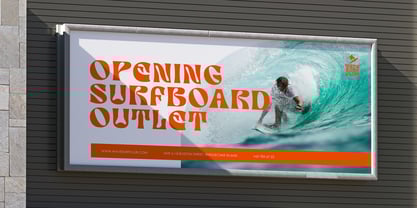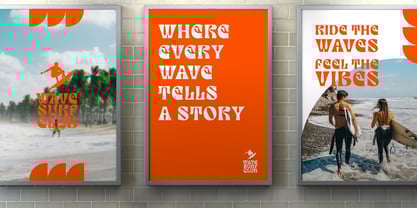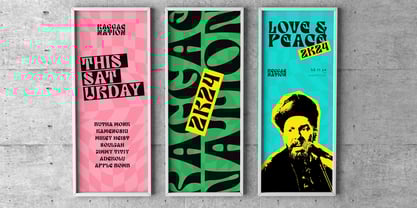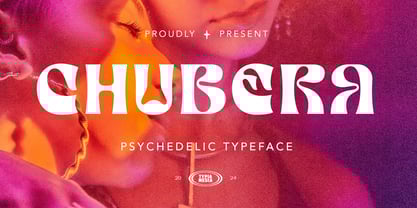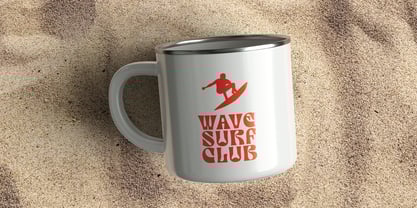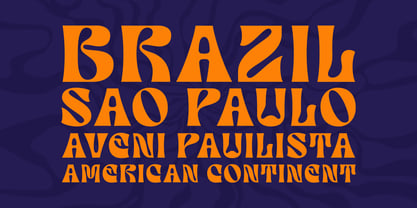
Chubera
by Typia Nesia
The Chubera Font Family was designed by Arief Setyo Wahyudi and published by Typia Nesia. Chubera contains 1 styles. More about this family
Chubera - Modern Psychedelic Display Typeface - Expressive Brutalist Font
Chubera is a captivating Psychedelic Typeface that transports users into a realm of vibrant colors, swirling patterns, and mind-bending designs. It epitomizes the psychedelic aesthetic, evoking a sense of surrealism and transcendence in every letterform. This font is perfect for projects that aim to channel the spirit of the 1960s and 1970s counterculture movement, including music posters and album covers, event flyers and invitations, visual art projects, psychedelic branding, printed merchandise, film and video titles, and experimental typography projects, where creativity knows no bounds. Crafted with expertise in psychedelic art and typography, Chubera reflects the essence of the psychedelic era with its intricate designs and captivating aesthetics.
Designers: Arief Setyo Wahyudi
Foundry: Typia Nesia